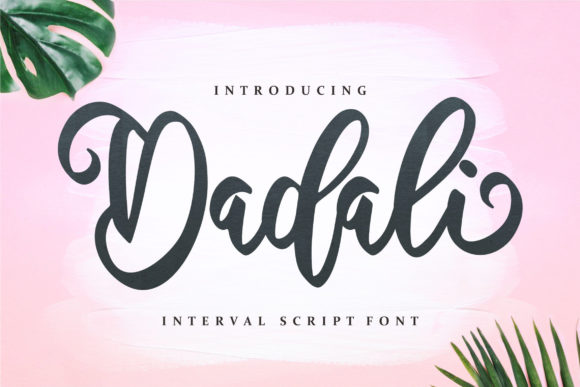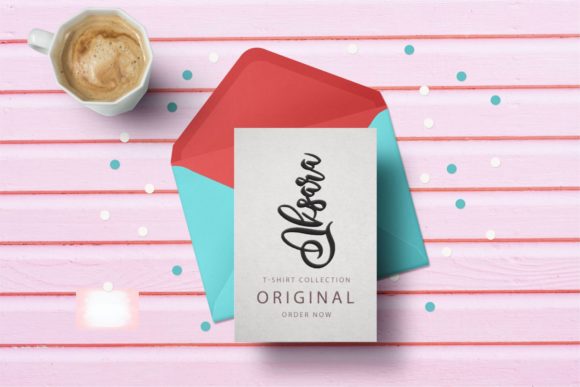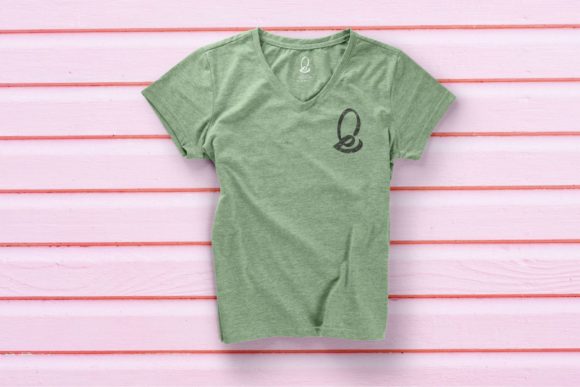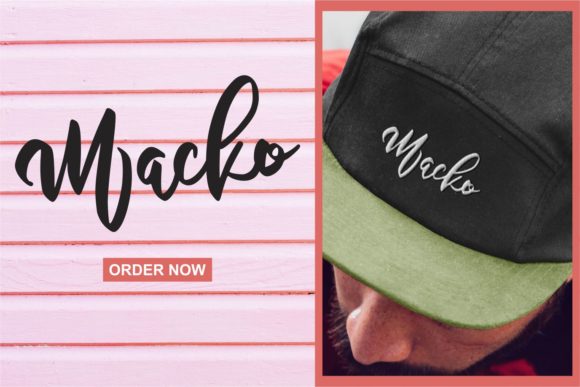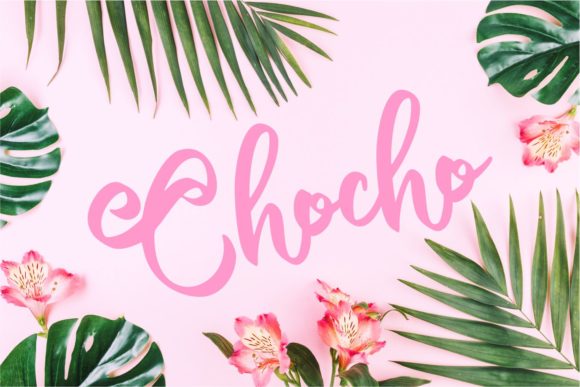
HomeScript FontsDadali Font Script Fonts Dadali Font FacebookXPinterestWhatsApp Dadali Font Poster 2 Dadali Font Poster 3 Dadali Font Poster 4 Dadali Font Poster 5 About Dadali Font Dadali is a swirly, fun and stylish script with a bold feel. Get inspired by its modern charm. DOWNLOAD ON CREATIVE FABRICAThis font is sold and delivered by Creative Fabrica. Font Canyon may earn a commission if you buy through this link. People also explored Handmade Font Brojeria Font Tangiang Font Father Font Garethons Script Font Holly Jolly Font King Quin Font Austrian Farmhouse Font Princess Line Font 297 0 TagsDadali Font Previous articleThe Knot FontNext articleBorris Font LEAVE A REPLY Cancel reply Comment: Please enter your comment! Name:* Please enter your name here Email:* You have entered an incorrect email address! Please enter your email address here Website: Save my name, email, and website in this browser for the next time I comment. Personal Use Free Bollado Personal Use Free Read more about this font Allea Sweet Personal Use Free Read more about this font Artisan Signature Personal Use Free Read more about this font Bridgetown Font Personal Use Free Read more about this font BLOG How to Install and Use Fonts on Windows, macOS, and Web Projects How to Install and Use Fonts on Windows, macOS, and Web Projects Fonts are a crucial part of design and branding. Whether you’re designing a... Fonts That Capture the Spirit of New York City Top 7 Google Fonts Alternatives for Faster and Privacy-Friendly Web Design (2025) 5 Fonts That Will Dominate Design Trends in 2026